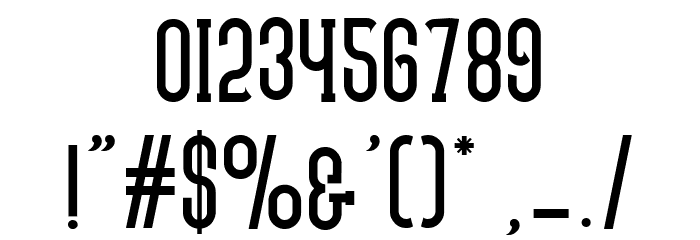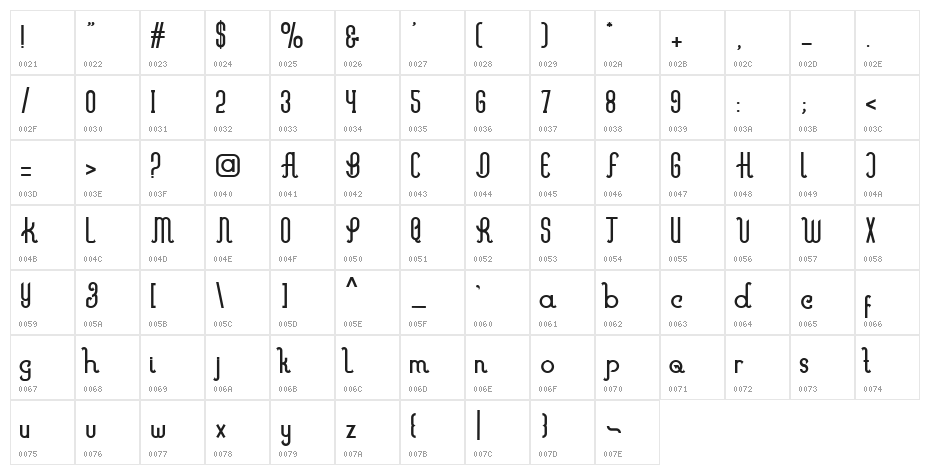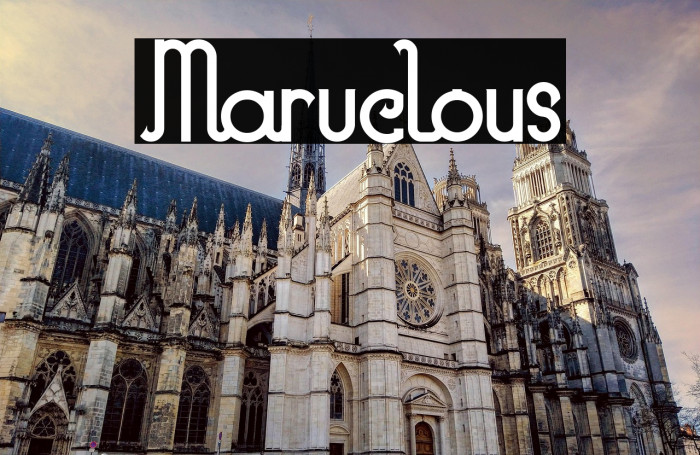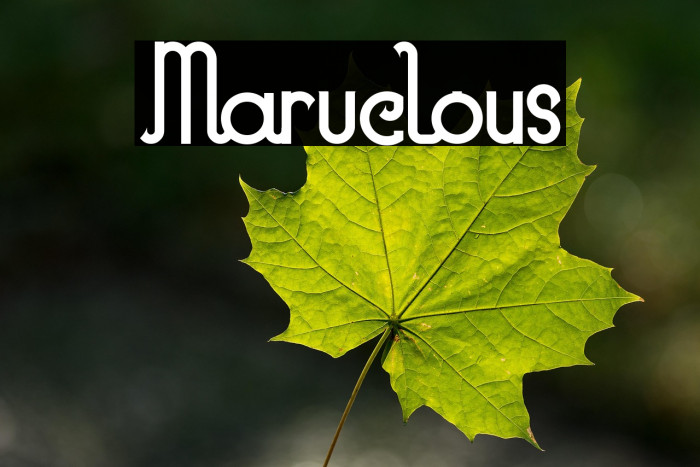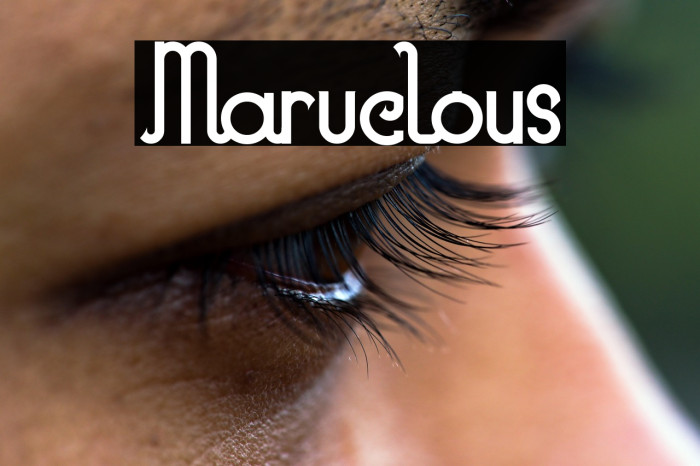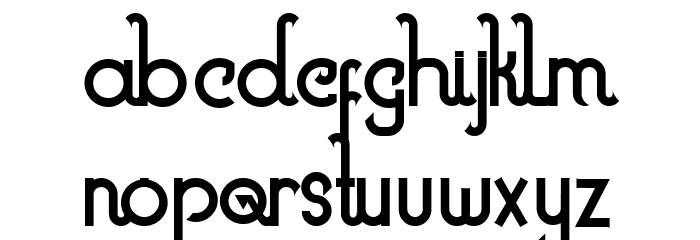
Marvelous Font
Marvelous Description
This font features a unique and decorative style with elongated and curved elements that give it a distinct, artistic flair. The uppercase letters are tall and narrow, with some characters like 'R' and 'K' having intricate loops and extensions. The lowercase letters maintain a consistent style, with rounded forms and occasional flourishes, such as the 'g' and 'y'. The numerals are bold and clear, maintaining the decorative theme with slight curves. Special characters are creatively designed, adding to the font's overall artistic appeal. This font is ideal for projects that require a touch of elegance and creativity.
| Use Case | Logos, Posters, Invitations |
| Proposed Projects | Ideal for branding, posters, invitations, and any project that requires a creative and elegant touch. |